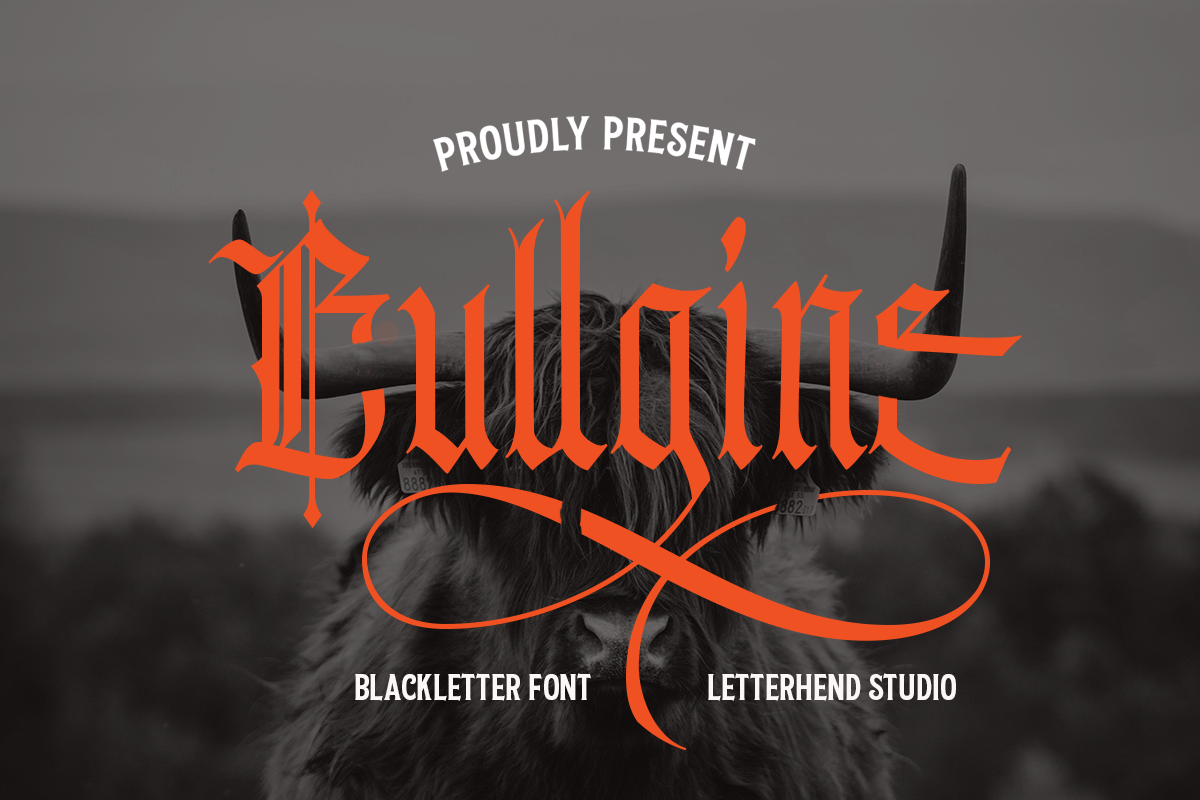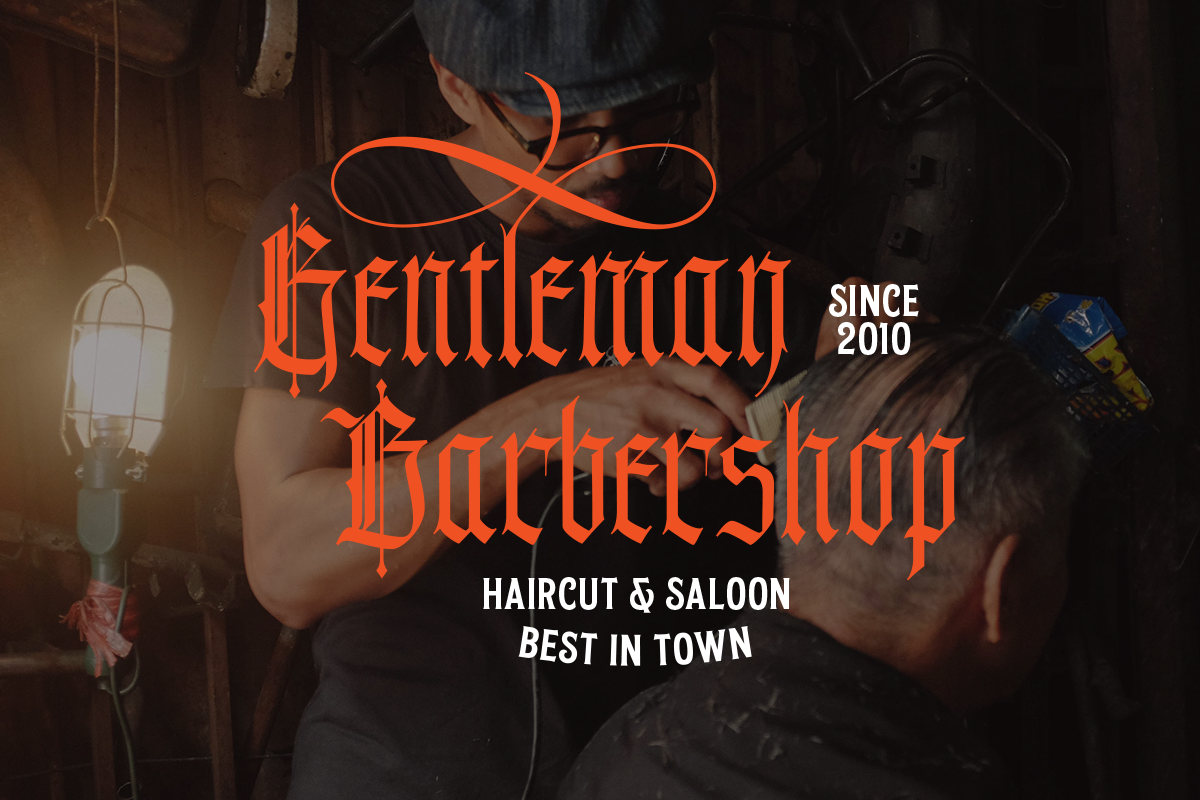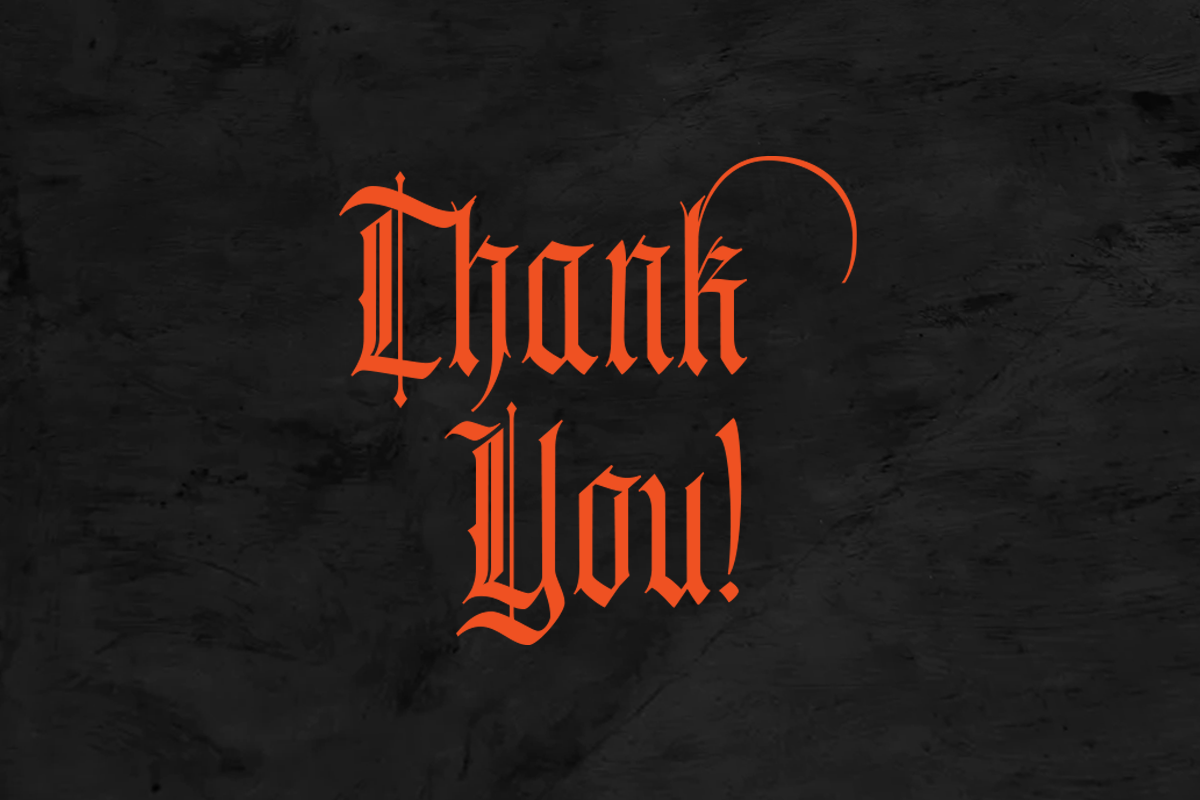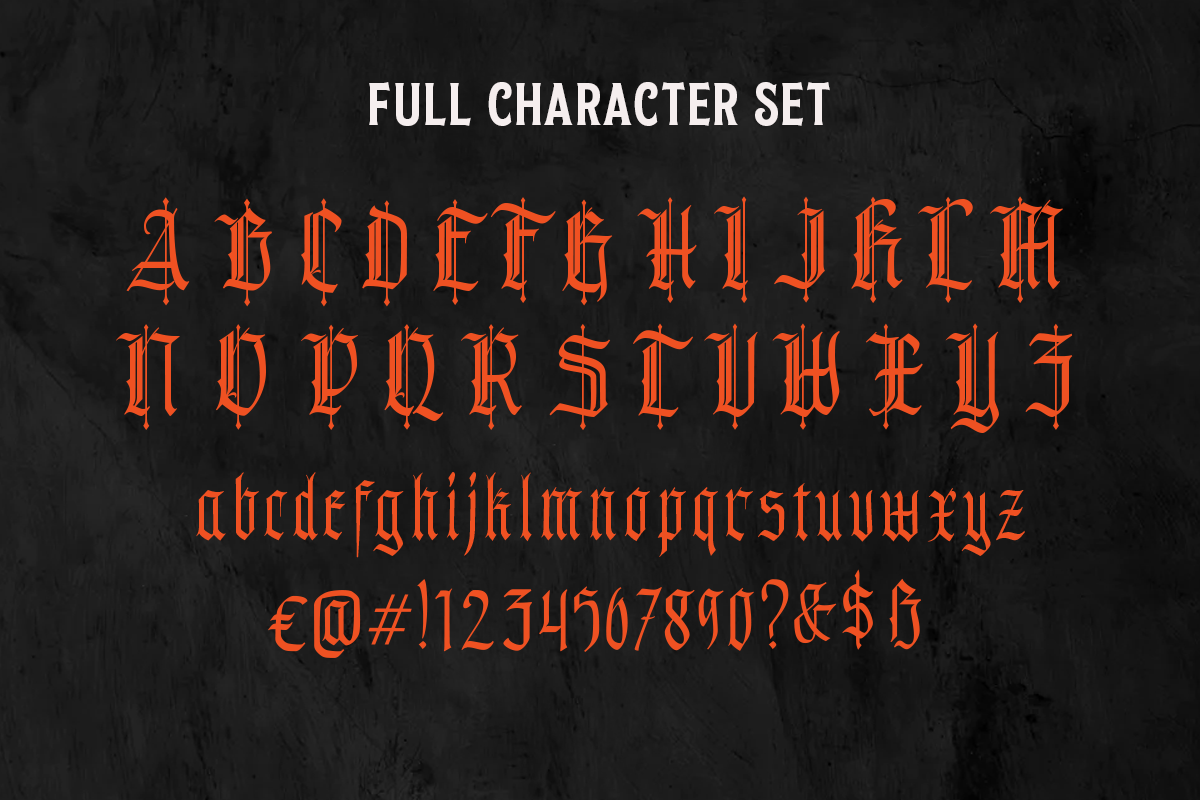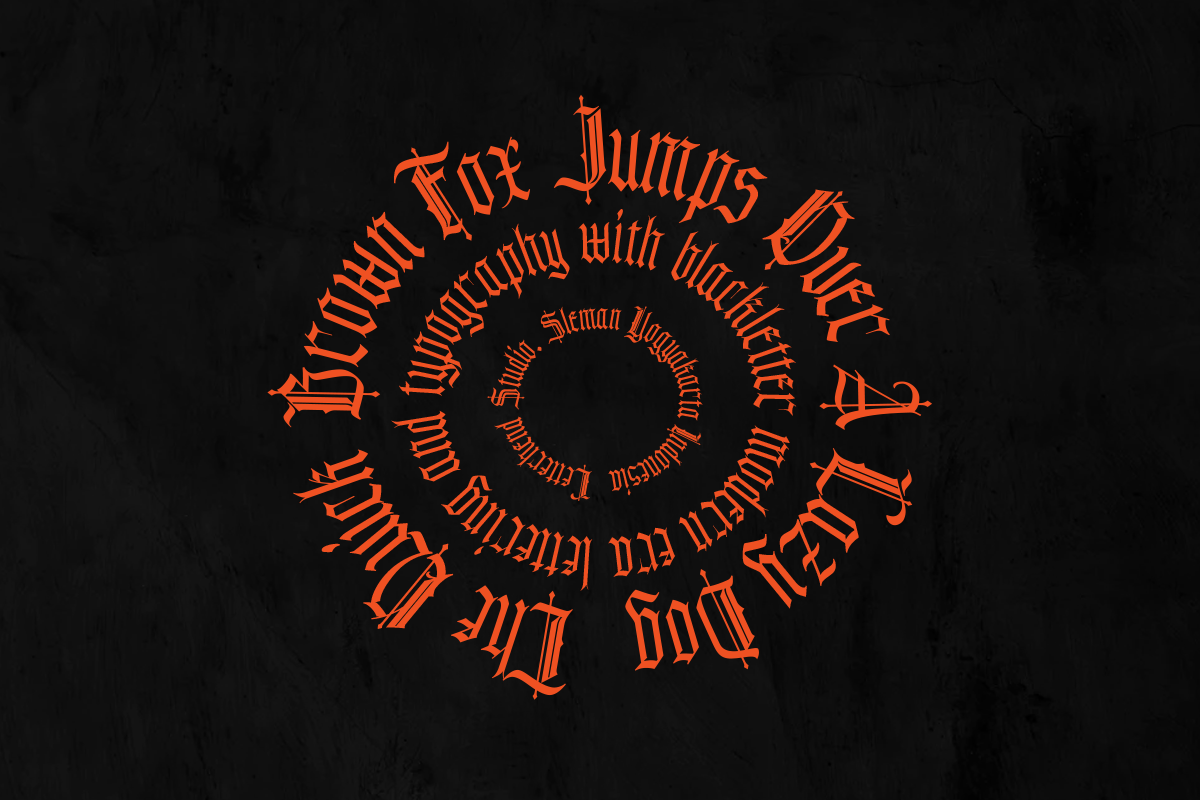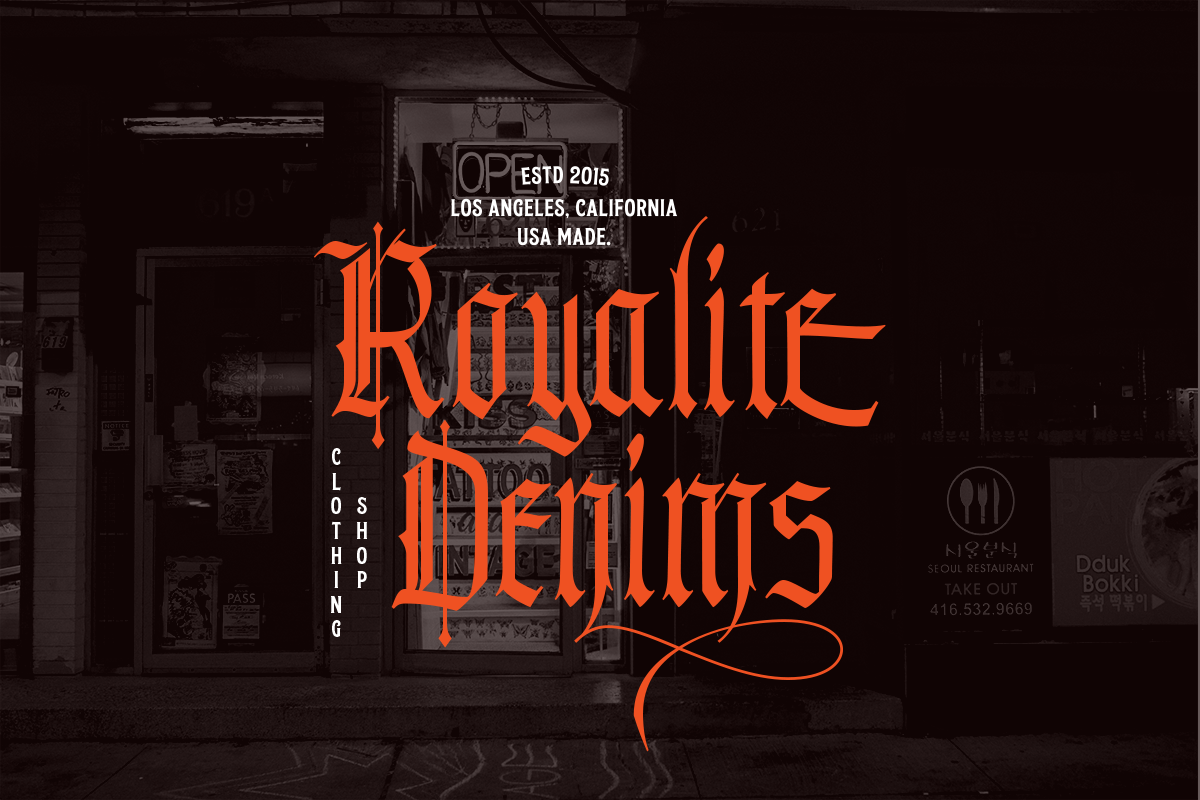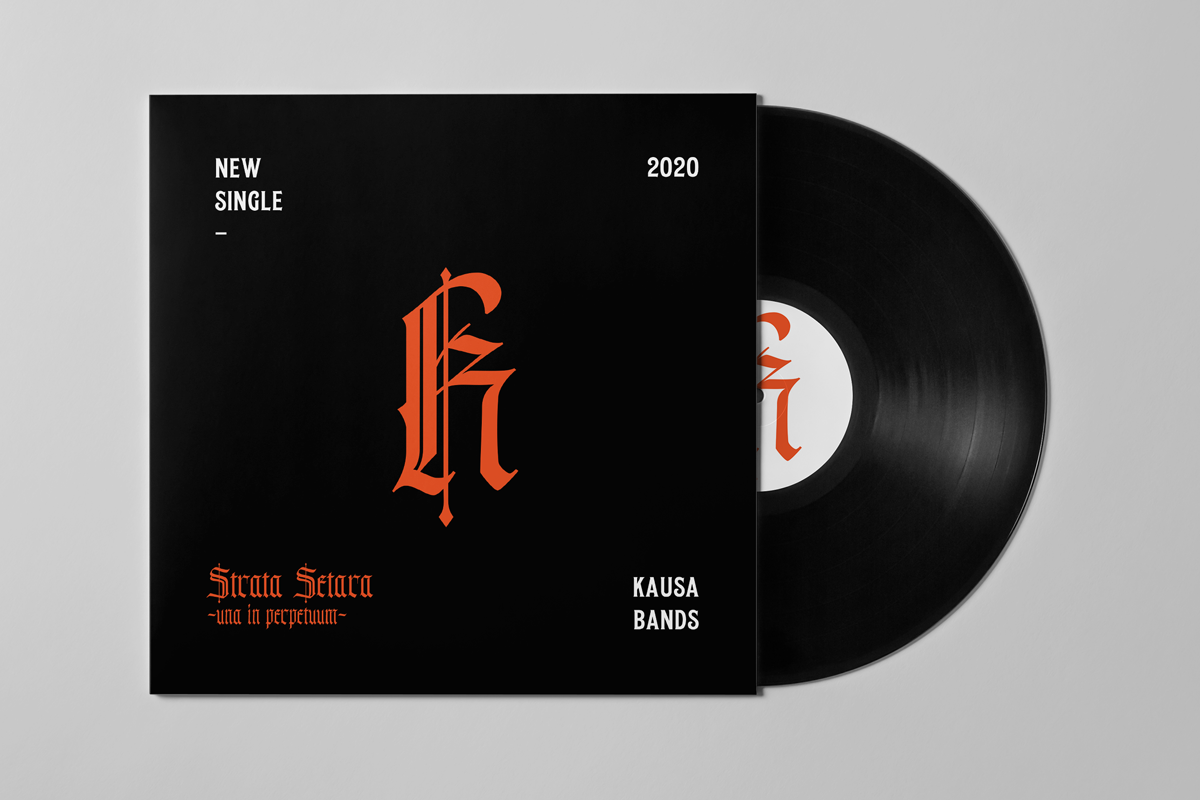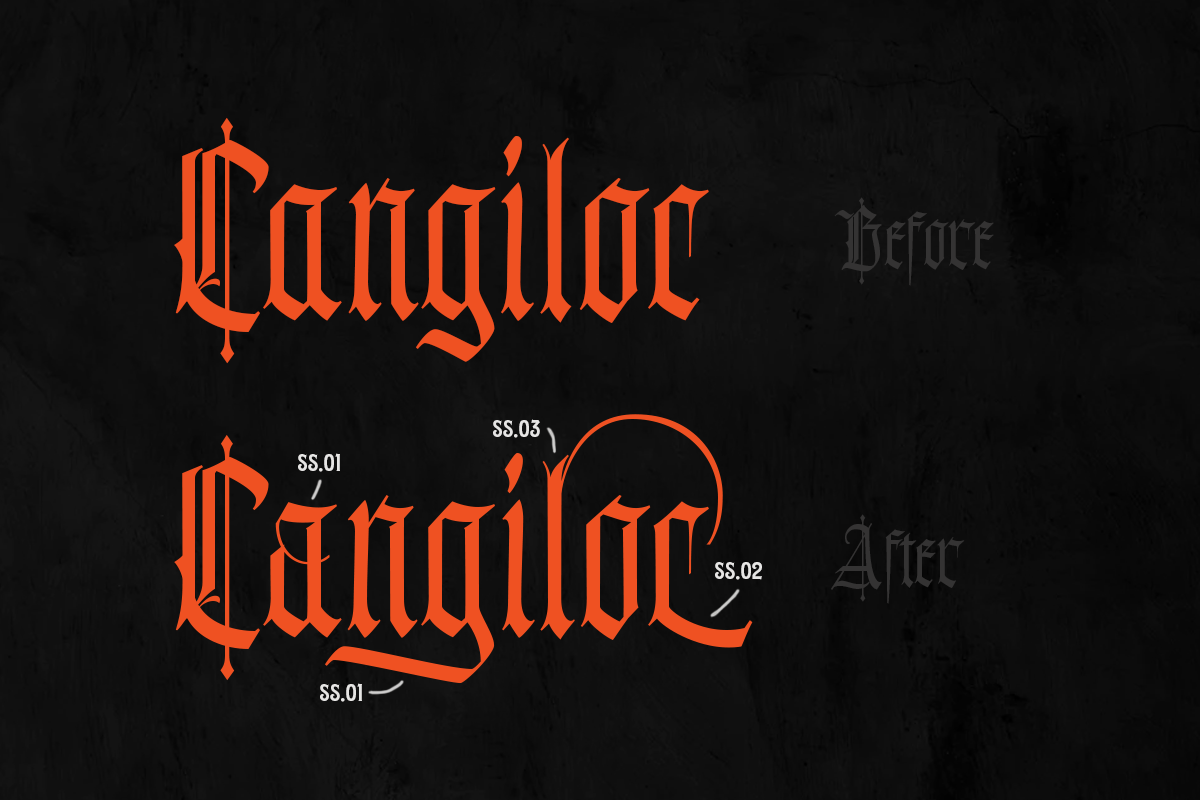
Introducing, Bullgine – A modern gothic blackletter typeface. This type of font perfectly made to be applied especially in logo, and the other various formal forms such as Logo, Clothing, Fashion, Headline, or any type of advertising purpose.
Features :
- uppercase & lowercase
- numbers and punctuation
- stylistic alternate
- multilingual
Bullgine Blackletter